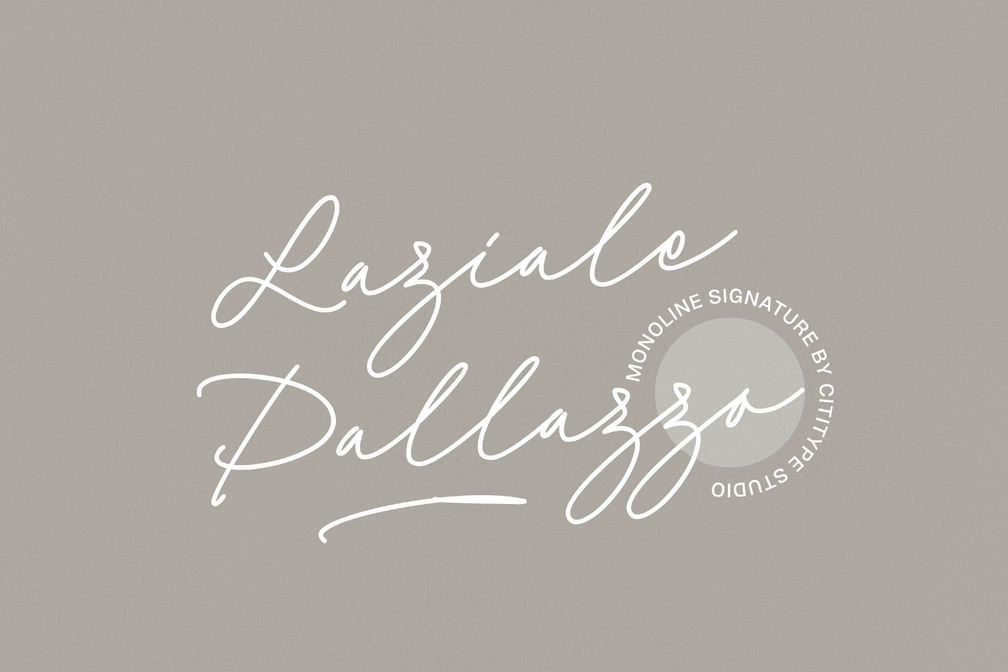
- Laziale Palazzo
Laziale Palazzo
Laziale Palazzo Swash
Laziale Palazzo is a distinctive signature font, crafted with the elegance and fluidity of a rollerpen. Its charm lies in its natural flow and monoline style, offering a smooth, continuous line that captures the essence of handwritten signatures. Subtle variations in the stroke, along with natural scratches, add a handcrafted, bespoke quality to the letters. Ideal for brand names, Laziale Palazzo brings a personal, modern touch to any identity, making it perfect for logos, business cards, and other branding materials where authenticity and sophistication are paramount.